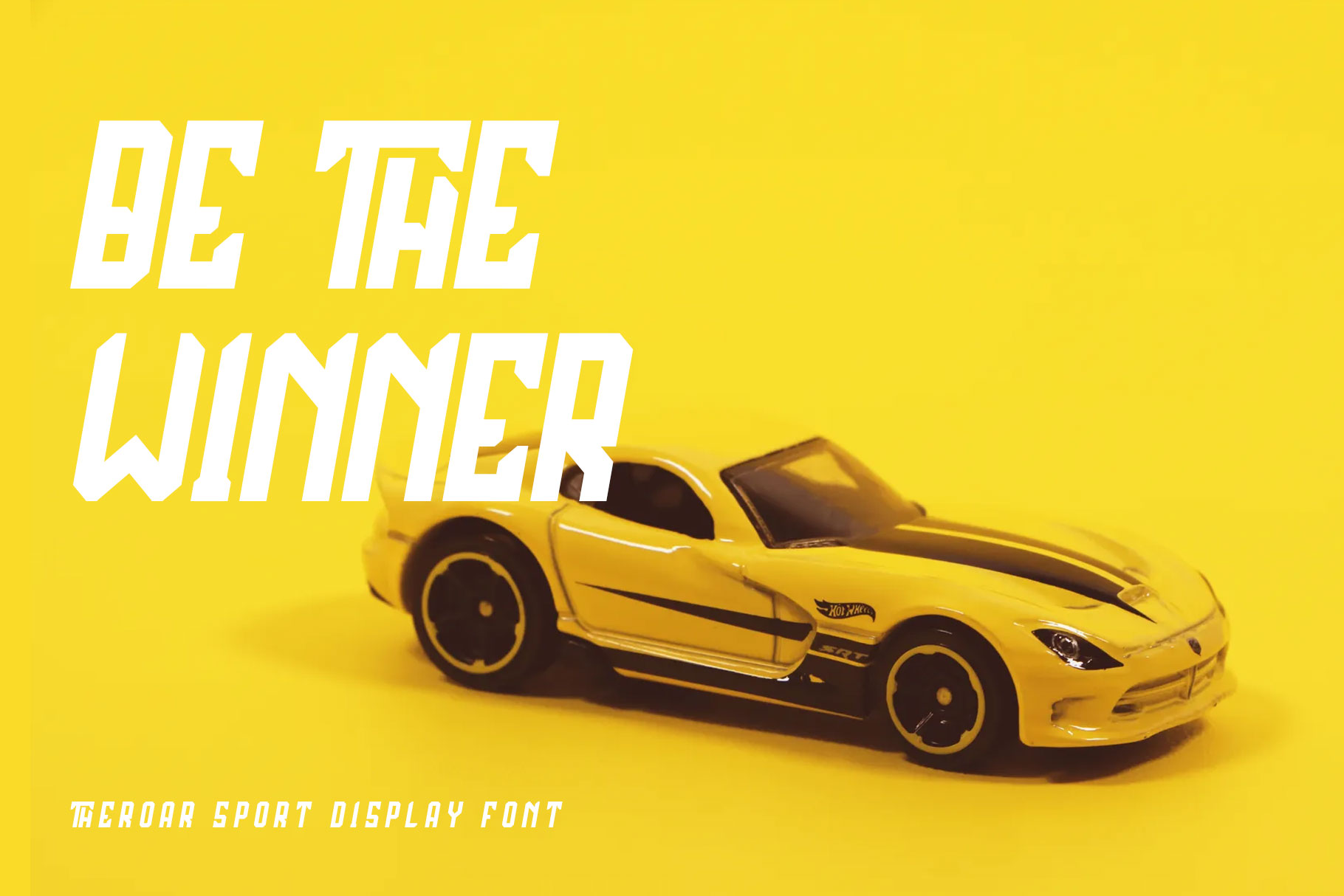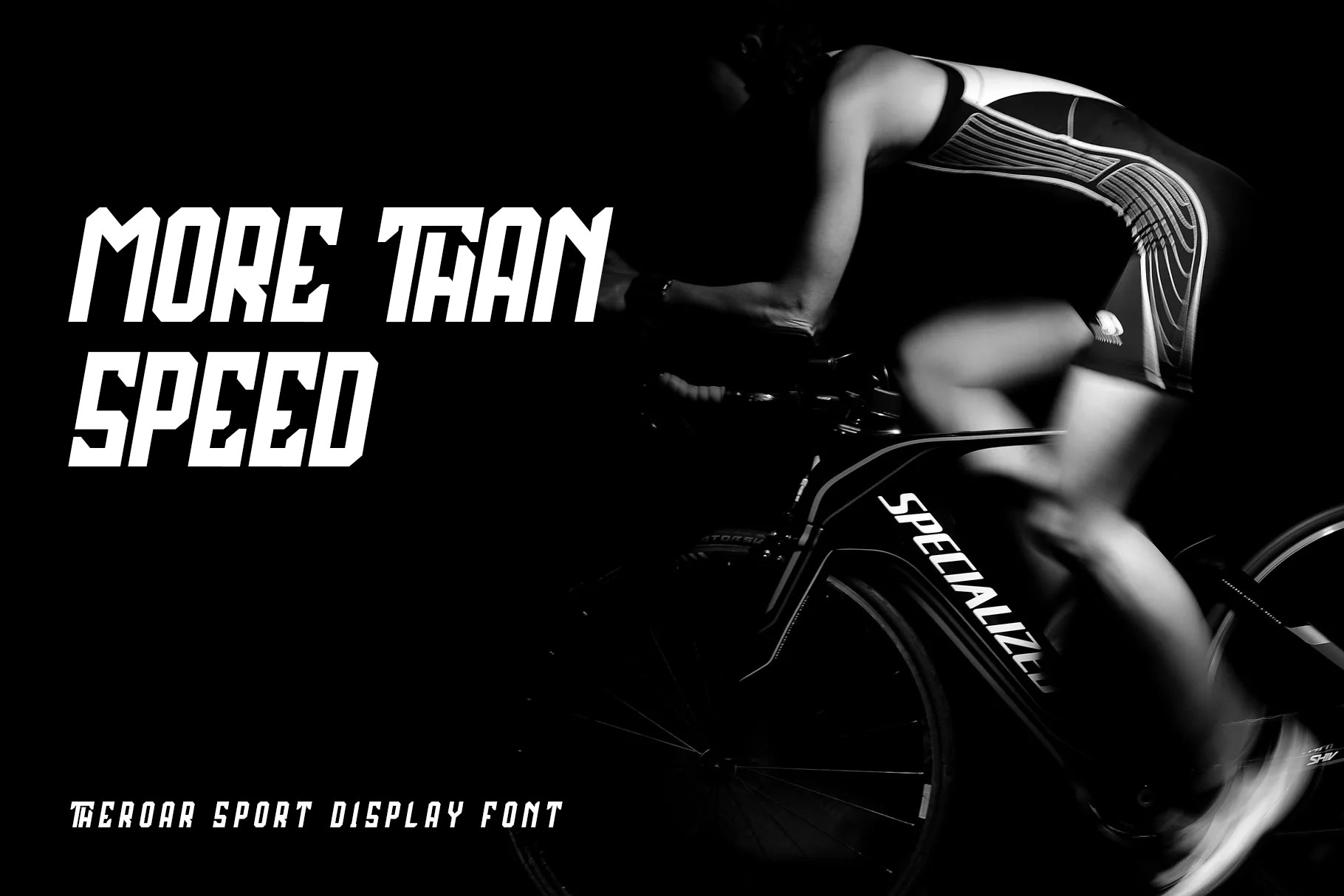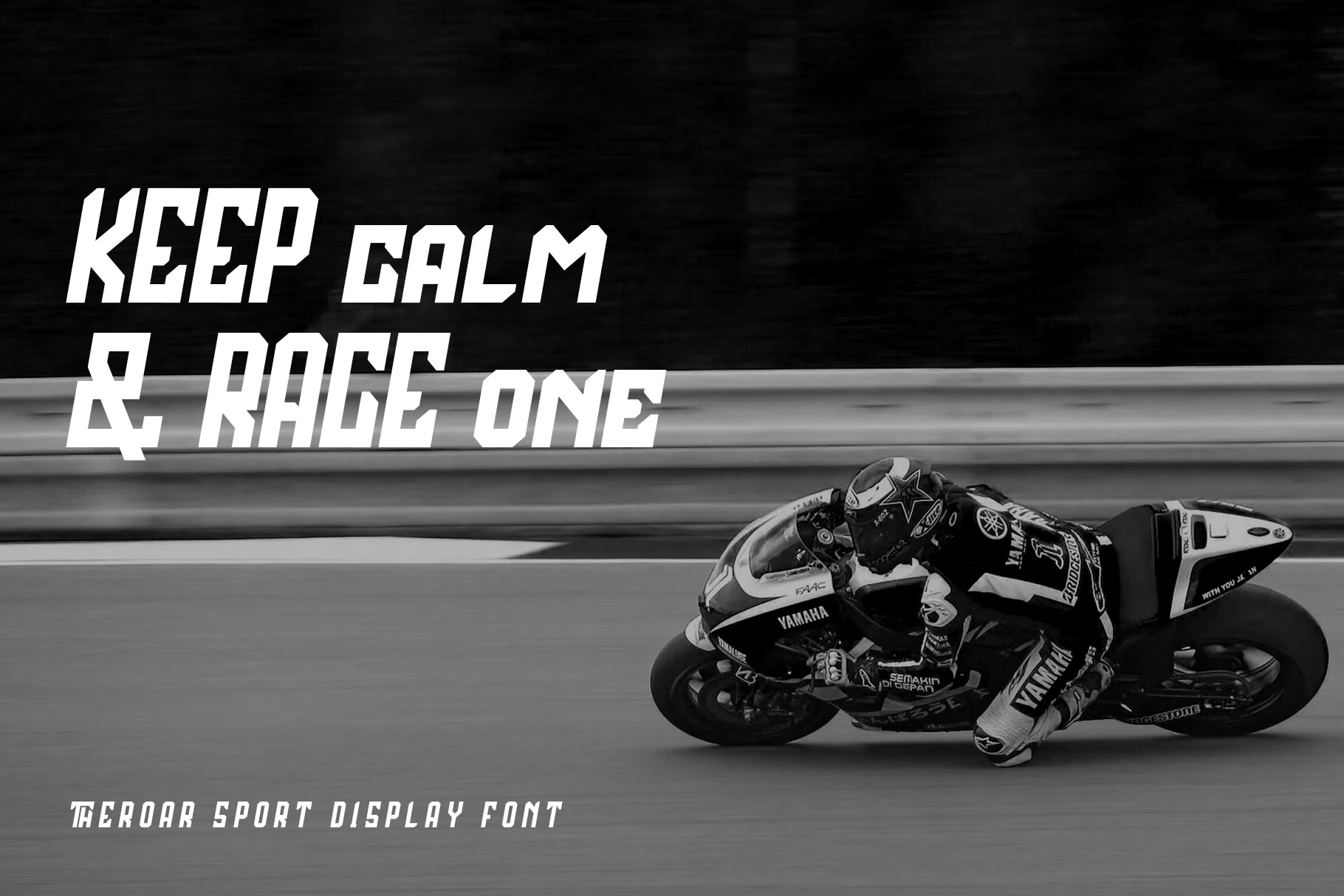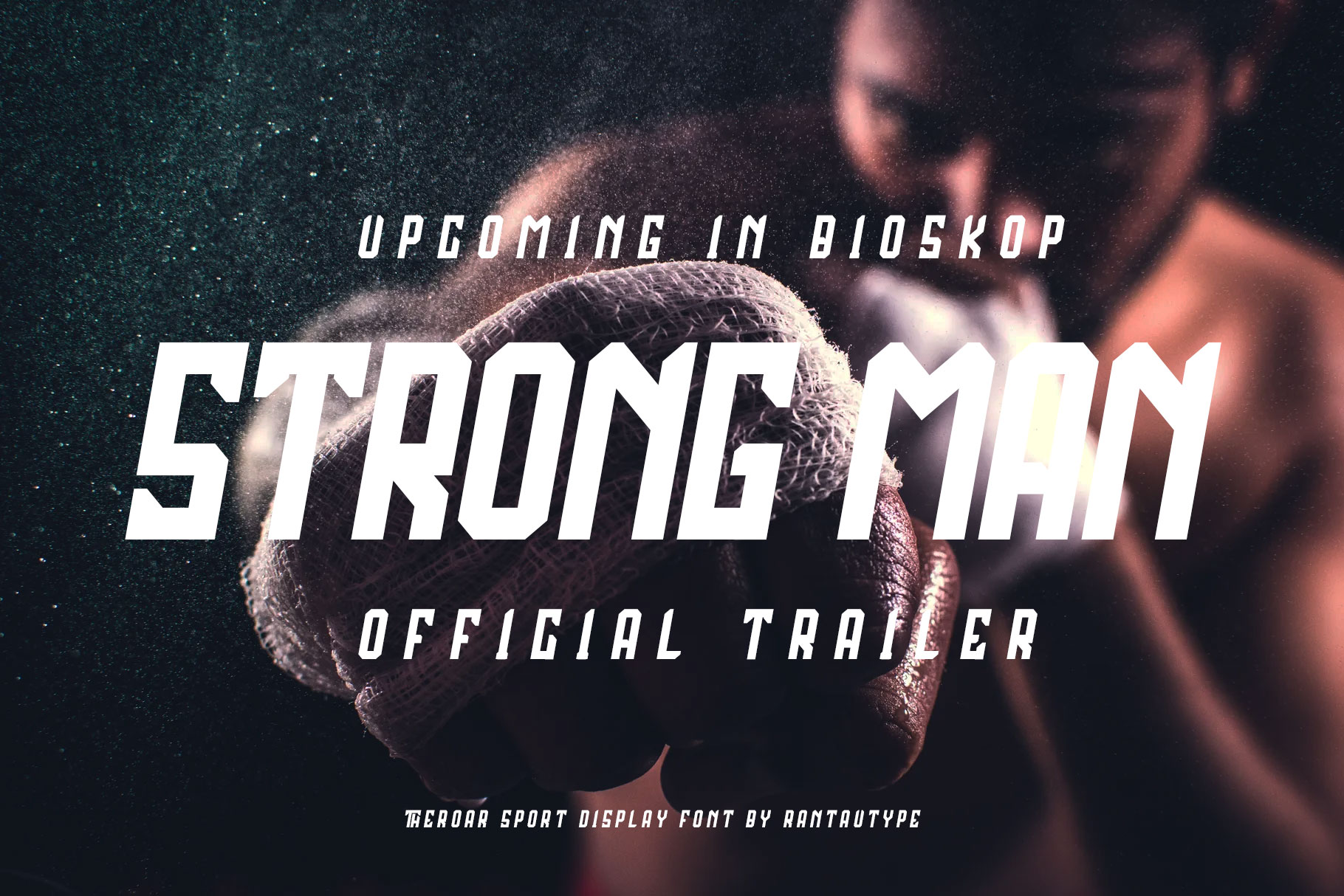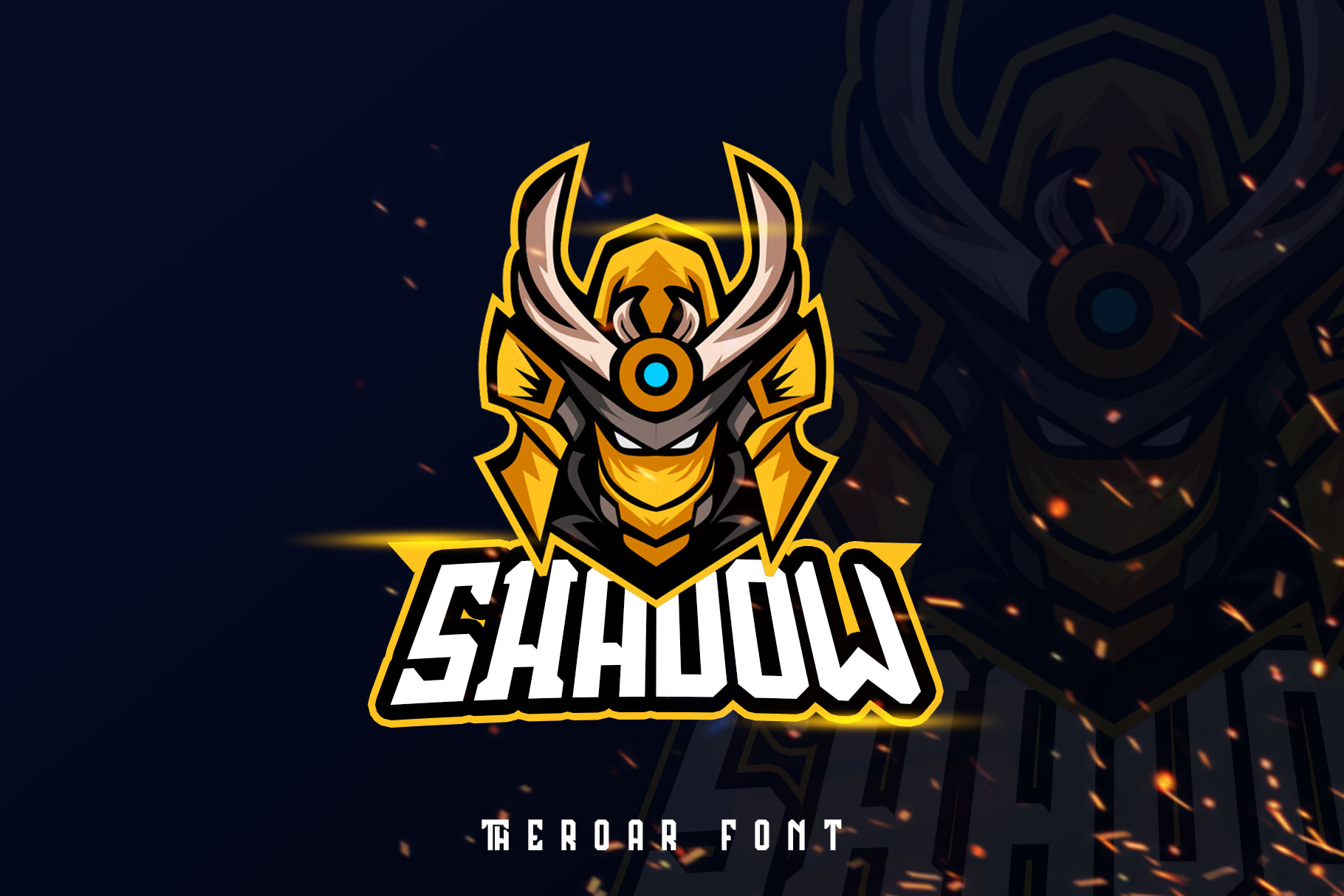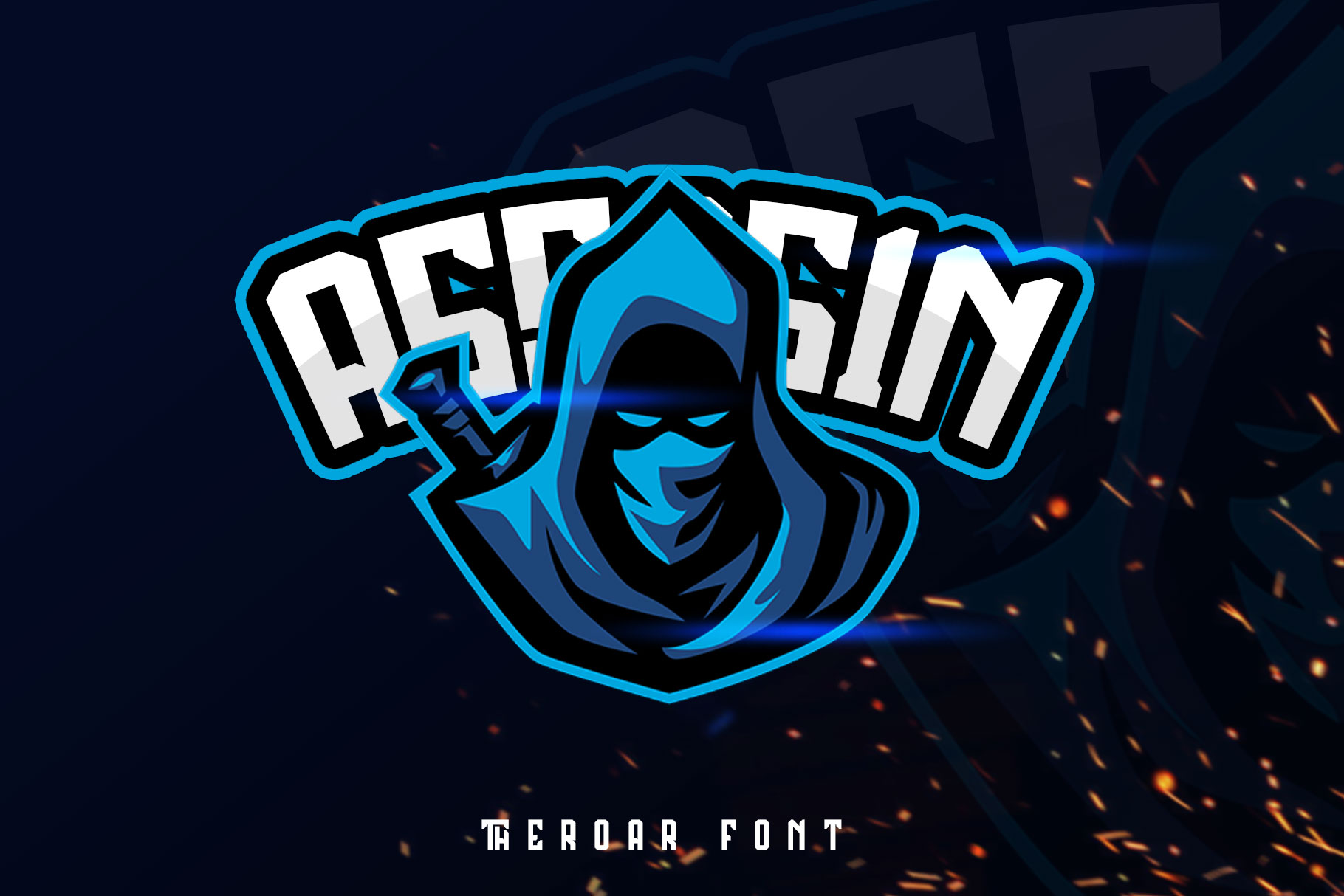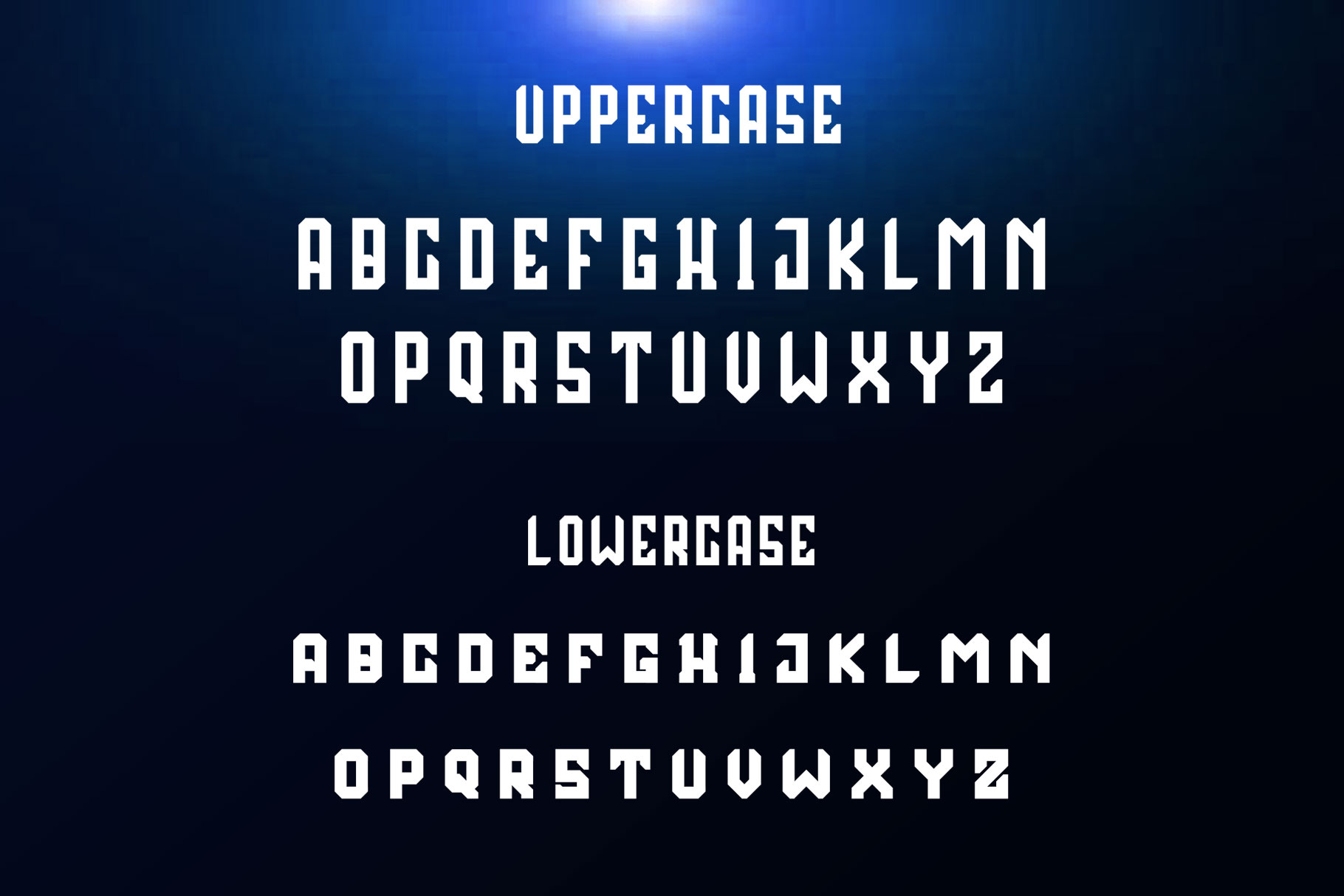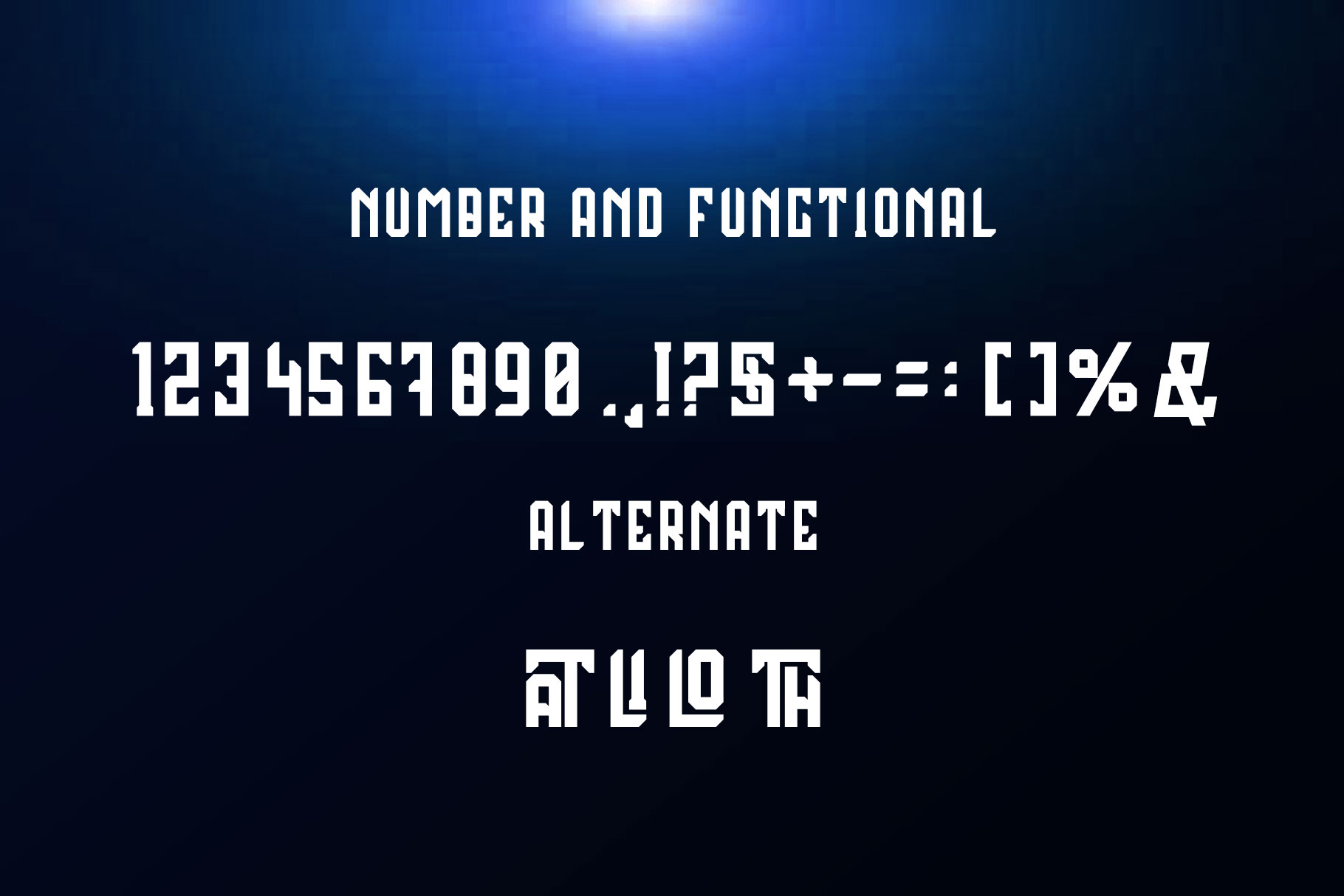
Theroar Sporty Font
Theroar sport display font. Theroar is Sporty and solid character and perfectly suited to logo, sport, brand, jersey, poster, clothing and much more! This font has a unique charm and easy visual readability, so it’s perfect for headlines, whether for sports events, automotive posters, logo or monograms designs.
• Basic Latin A-Z and a-z
• Ligatures